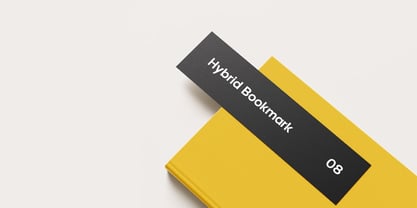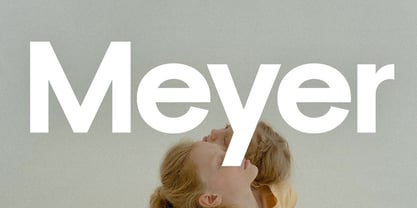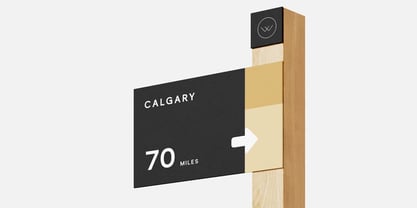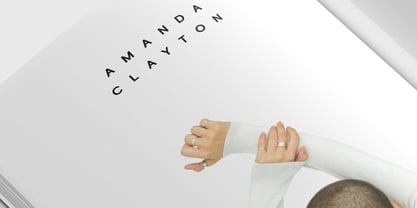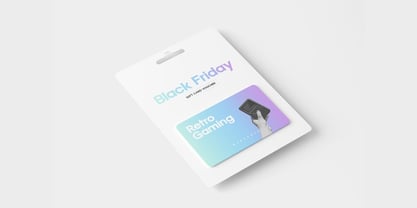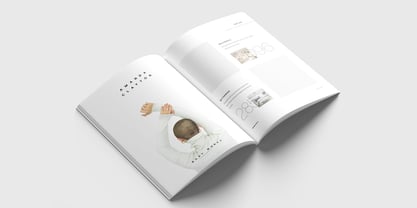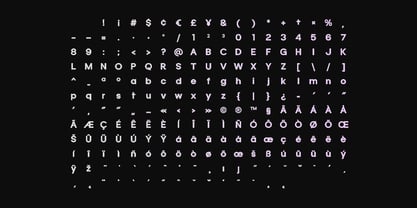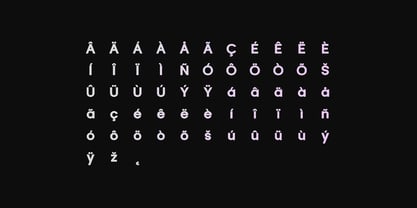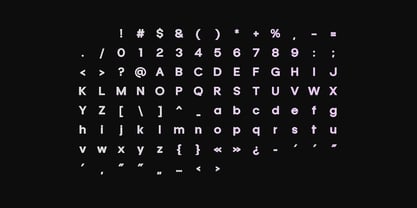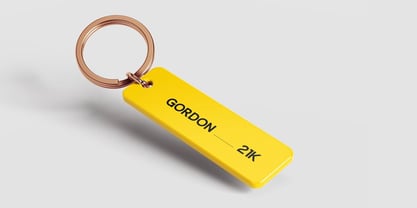
Meyer Nue
by Webhance
The Meyer Nue Font Family was designed by Ancy George and published by Webhance. Meyer Nue contains 1 styles.
We’re thrilled to introduce our newest font family, Meyer, crafted to enhance your creative projects with sophistication and strength. Designed to make a striking impression, Meyer is perfect for delivering bold and impactful designs.
Meyer is the latest creation from Webhance Studio, a bold display font that exudes power with its clean, modern design. Perfect for commanding attention, this font features strong lines and confident forms, ensuring it stands out on any platform. Whether you’re working on branding, fashion, or social media designs, Meyer’s bold style adds a captivating touch to any project.
Its impactful design makes it perfect for Instagram and YouTube thumbnails, posters, headlines, and other creative applications. With its sharp, precise lines, Meyer is tailored to grab attention and bring a contemporary flair to your design work.